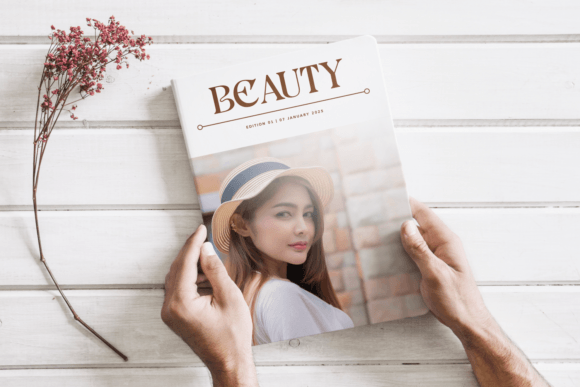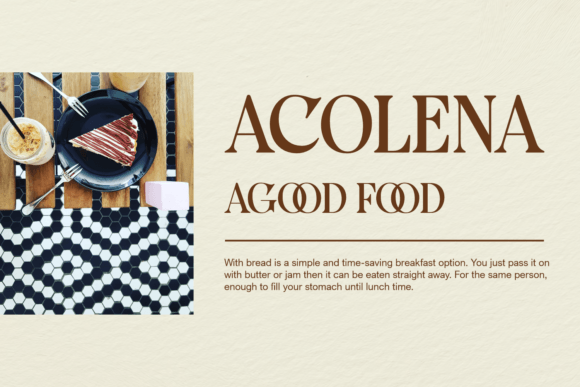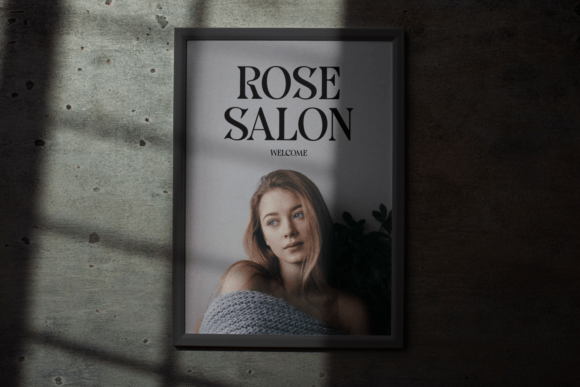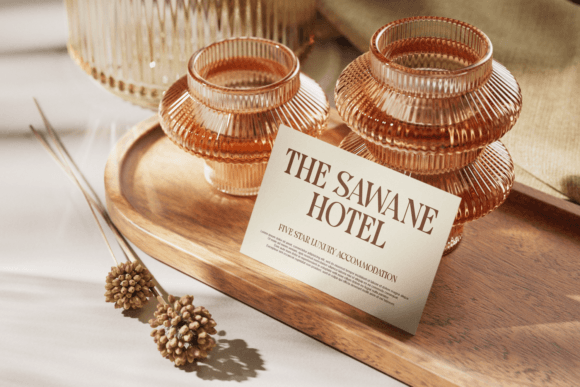
Bonce Font: Elevate Your Designs with Timeless Elegance
In the world of typography, few fonts manage to strike a balance between classic sophistication and modern refinement. Bonce font is one such exceptional typeface that seamlessly blends the best of both worlds. With its elegant serif design, Bonce is perfect for luxury branding, editorial layouts, invitations, and logos, making it a go-to choice for designers and crafters seeking to add a touch of class to their creations.
The Essence of Bonce Font
Bonce is a sophisticated and elegant serif font that boasts graceful curves and sharp details. Its refined aesthetic makes it an ideal choice for projects that demand a high level of sophistication. Whether you’re working on a luxury brand’s visual identity, a high-end editorial layout, or a bespoke invitation, Bonce ensures that your message is conveyed with clarity and style.
Key Features of Bonce Font
- Elegant Serif Design: Bonce’s serif design adds a touch of classic elegance to any project, making it perfect for luxury branding and high-end editorial content.
- Graceful Curves and Sharp Details: The font’s smooth curves and precise details create a beautiful visual harmony, ensuring that your designs stand out with sophistication.
- Timeless Appeal: Bonce’s classic design ensures that your projects remain timeless, avoiding the fleeting trends of modern typography.
- High Readability: Despite its elegant design, Bonce maintains high readability, making it suitable for body text and headlines alike.
Use Cases for Bonce Font
Bonce’s versatility makes it suitable for a wide range of design applications. Here are some of the most popular use cases:
- Luxury Branding: Establish your brand’s high-end identity with Bonce’s sophisticated and elegant design.
- Editorial Layouts: Elevate your magazine, newspaper, or book designs with Bonce’s refined aesthetic.
- Invitations and Event Design: Create bespoke invitations, wedding cards, and event materials that exude elegance and sophistication.
- Logos and Wordmarks: Use Bonce to create a lasting impression with a logo that embodies timeless elegance.
Tips for Using Bonce Font Effectively
To get the most out of Bonce font, consider the following tips:
- Pair with Complementary Fonts: Combine Bonce with sans-serif fonts or script fonts to create a visually appealing contrast.
- Experiment with Font Sizes: Use Bonce in various font sizes to create a clear visual hierarchy in your designs.
- Pay Attention to Line Spacing: Ensure adequate line spacing to maintain readability and prevent the text from appearing too dense.
Bonce font is a masterful blend of classic elegance and modern refinement. Its sophisticated design, high readability, and versatility make it an excellent choice for designers and crafters seeking to elevate their projects. Whether you’re working on luxury branding, editorial layouts, invitations, or logos, Bonce ensures that your message is conveyed with timeless elegance and style.
Discover the world of possibilities with Bonce font and take your designs to new heights of sophistication and refinement.